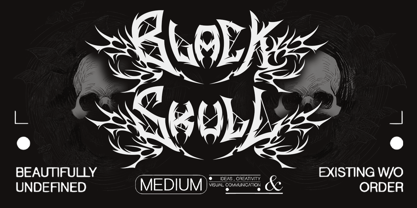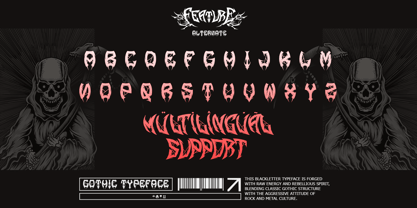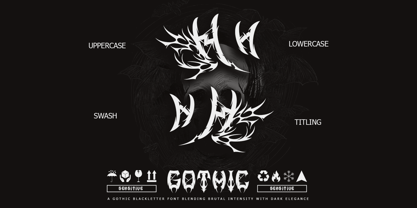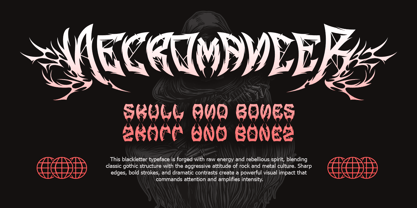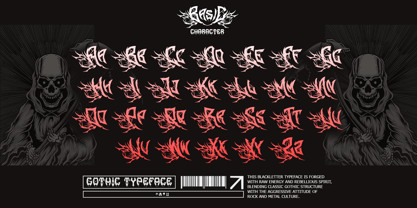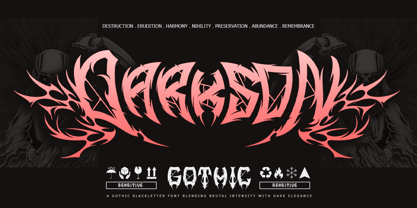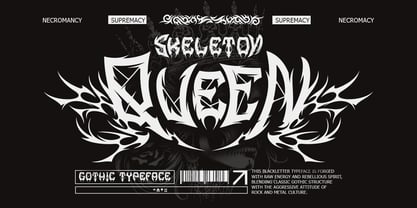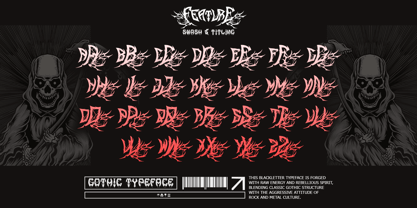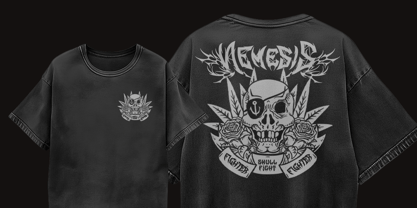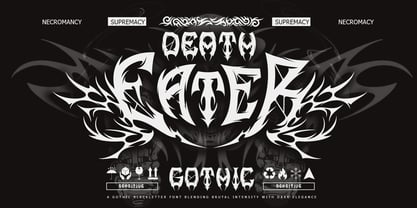
Demon Crown
Demon Crown is an extreme gothic blackletter font forged in darkness, power, and ritual. Featuring razor-sharp strokes, aggressive curves, and a commanding symmetrical presence, this font embodies domination, chaos, and dark authority in every letter. Inspired by occult symbols, cathedral shadows, and the raw energy of metal culture, Demon Crown transforms typography into a visual force that demands attention. Perfect for band logos, album covers, dark fantasy titles, game branding, tattoo designs, and cinematic artwork, it delivers brutal elegance with unmistakable impact. Let Demon Crown rule your designs with unholy strength, where every word stands crowned in darkness.